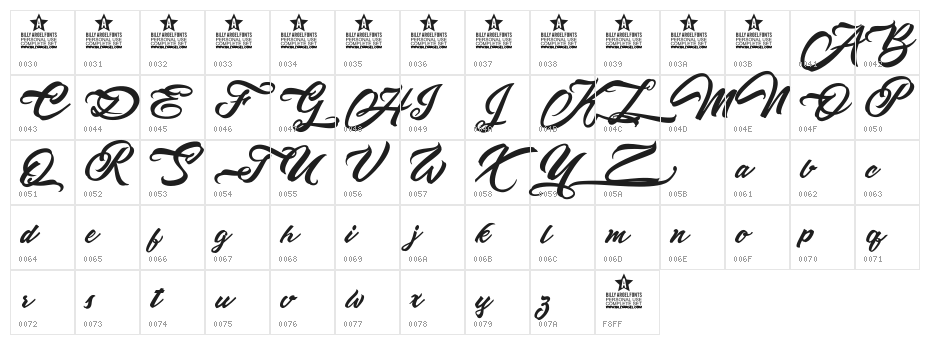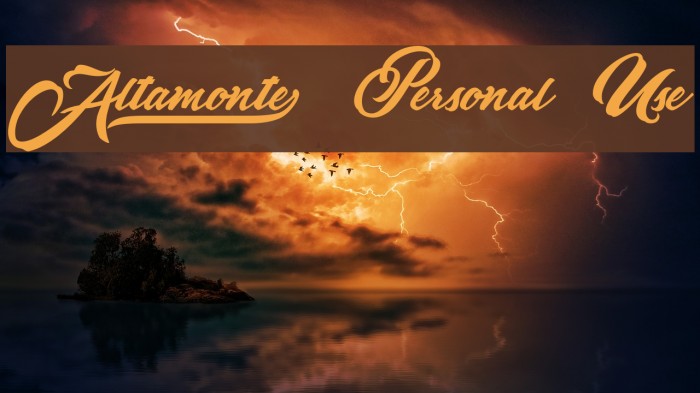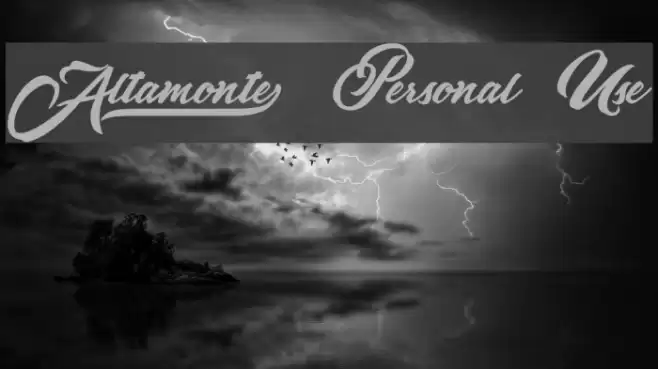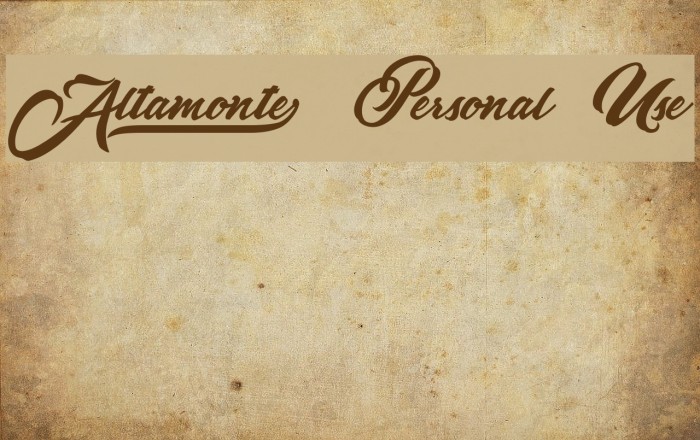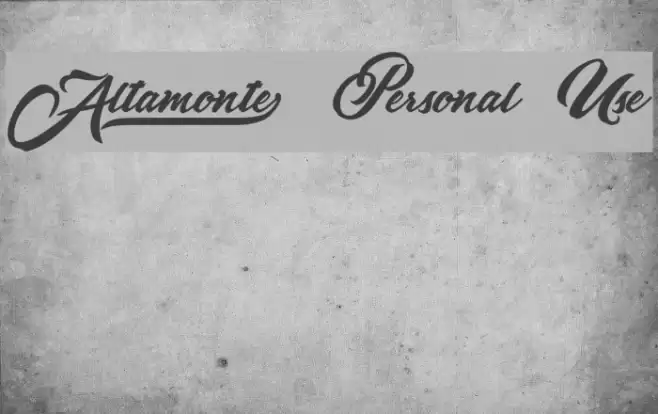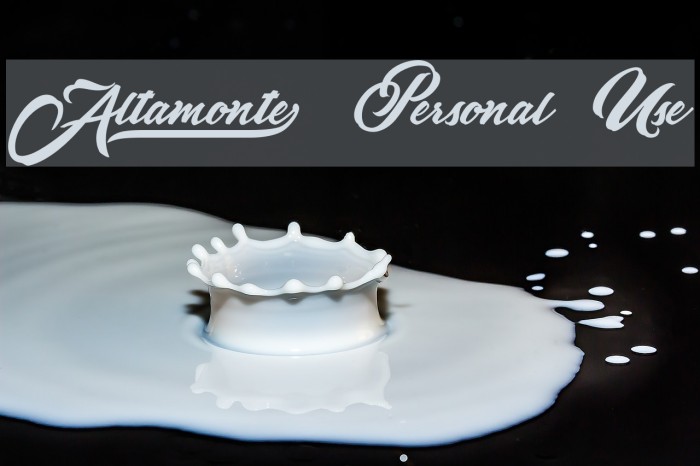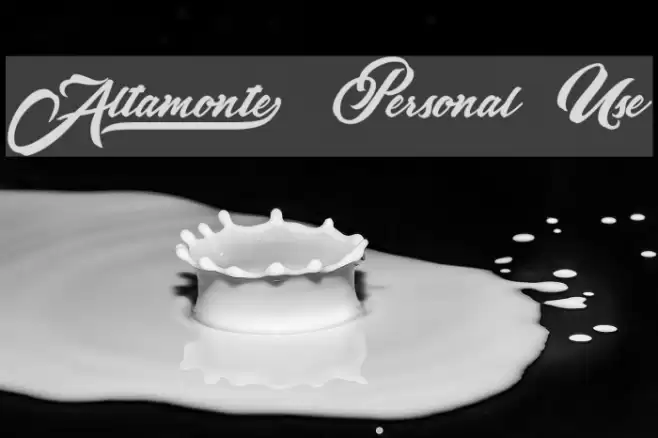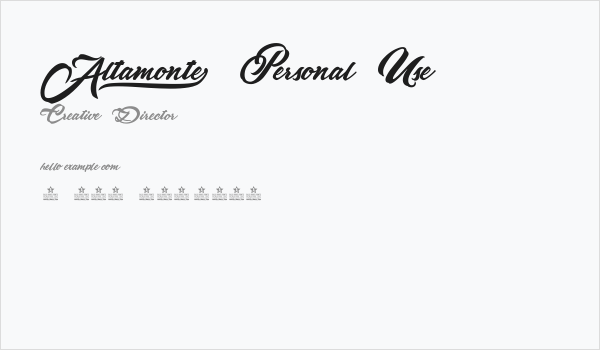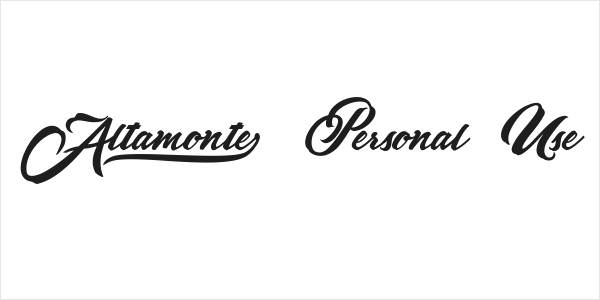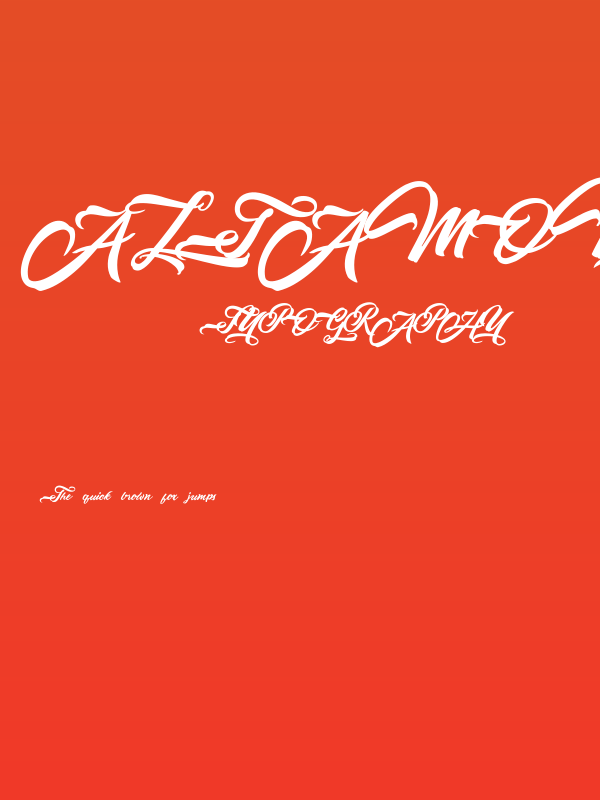
Altamonte[ Personal Use Font
Altamonte[ Personal Use Description
This font features an elegant and flowing script style, characterized by its intricate and decorative letterforms. The uppercase letters are particularly ornate, with flourishes and loops that give them a sophisticated appearance. The lowercase letters maintain a consistent style, with smooth curves and a slightly slanted orientation. The overall design is reminiscent of classic calligraphy, offering a sense of elegance and formality. The numbers and special characters are designed to match the script style, ensuring a cohesive look across all characters.
| Use Case | Logos, Invitations, Decorative Text |
| Proposed Projects | Ideal for wedding invitations, elegant branding, formal event programs, and decorative signage. |